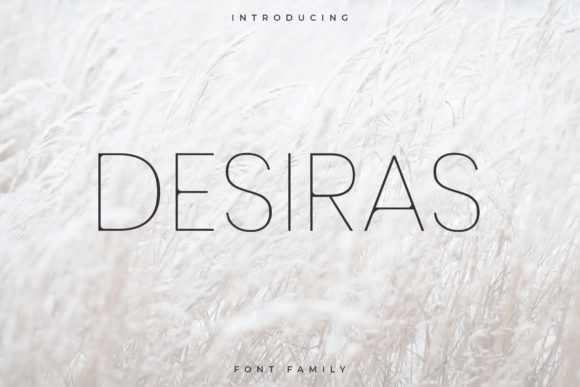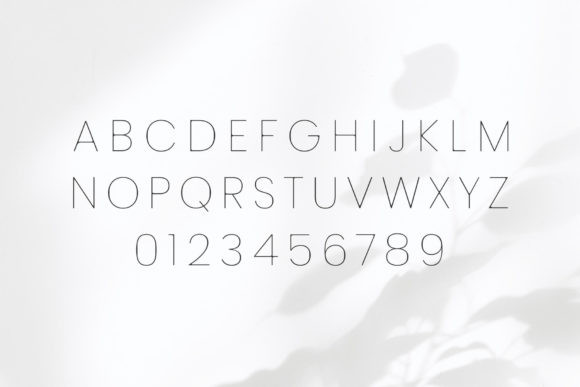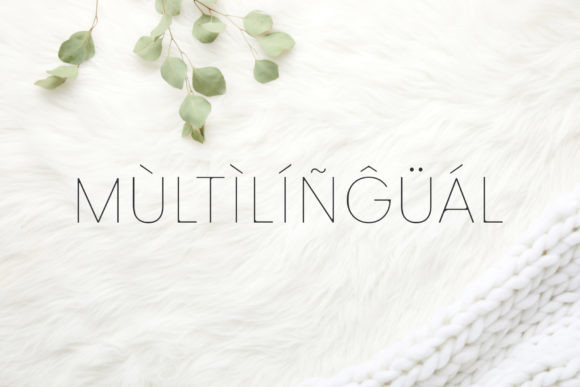
Desiras Font
Desiras is a minimalistic, timeless, and stunning sans serif font. This font looks beautiful in layouts, headers, web, and many other contexts!